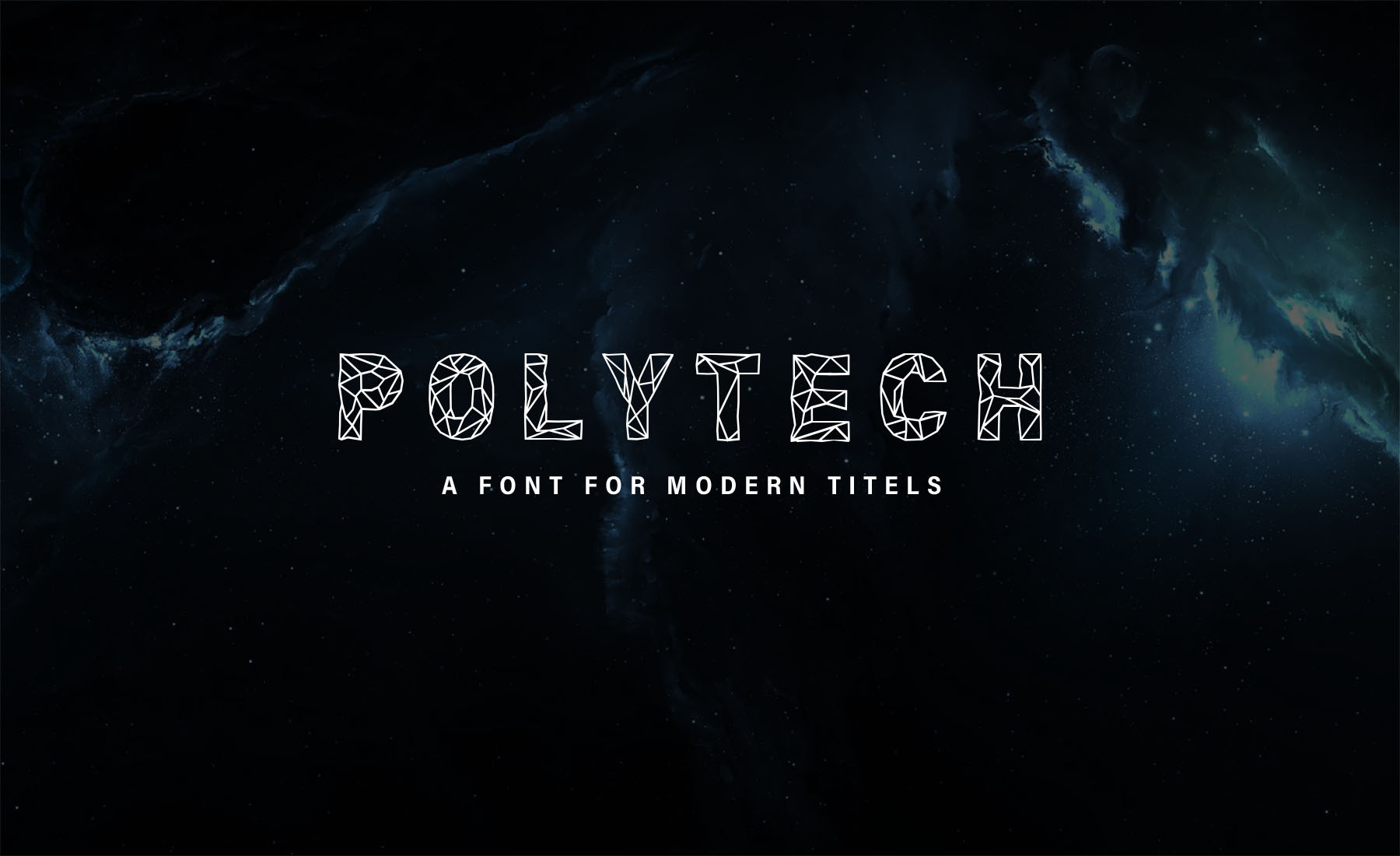
Polytech MODERN Font
Polytech modern font for titles very strong and persuasive font for making hierarchy on your designs. It looks great combining with other fonts like shown in example.
I have created it because I was in need of such font so I decide it to share it with you.I have used it for logo and for titles all caps. But you can use it for whatever you feel its good looking.